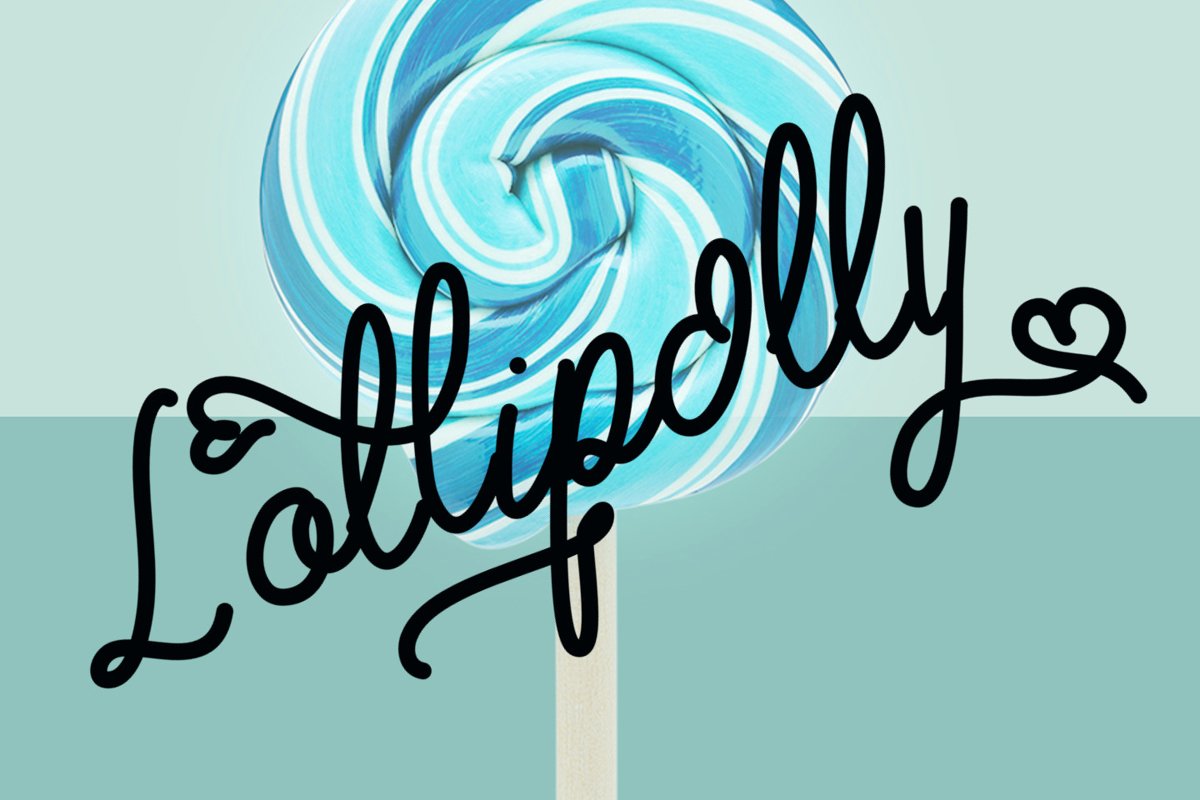
Lollipolly
lollipolly is a beautiful calligraphy script. its charming and elegant style very suit for your special design. use it for printing, crafting, web, and much more design.